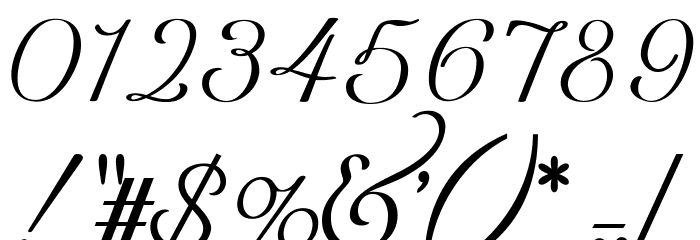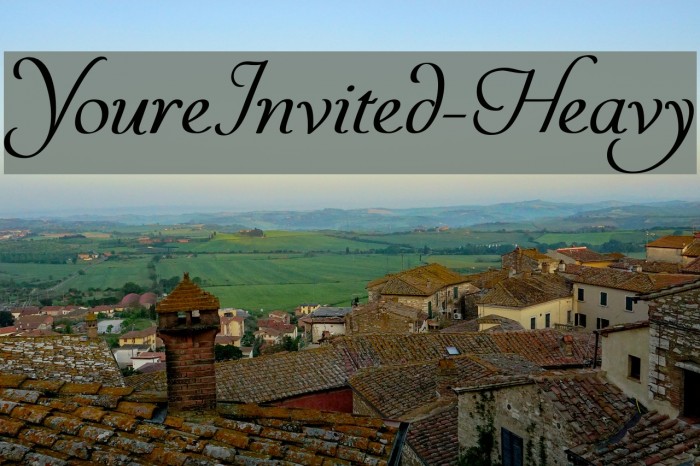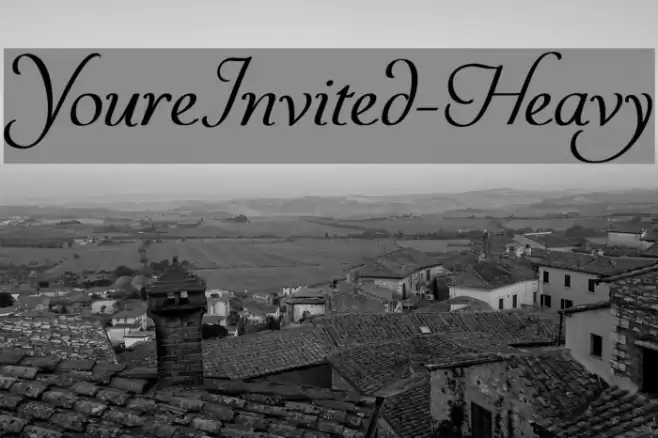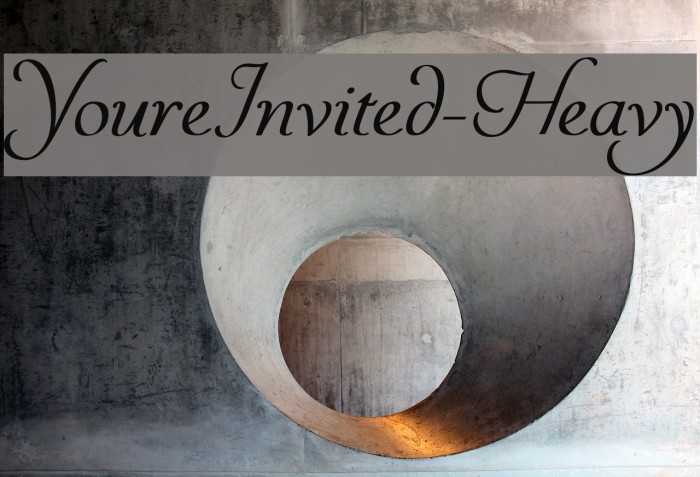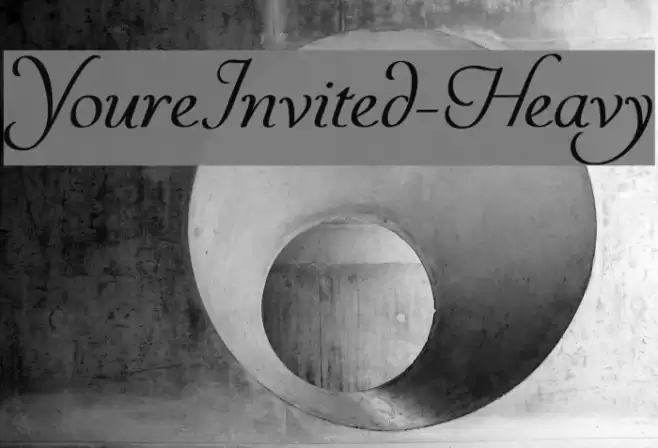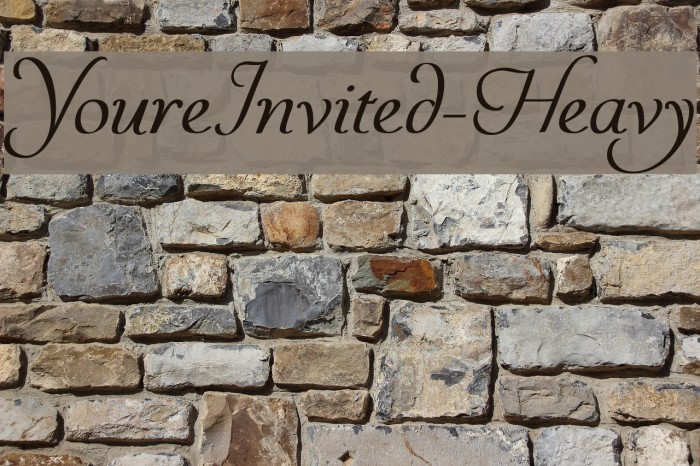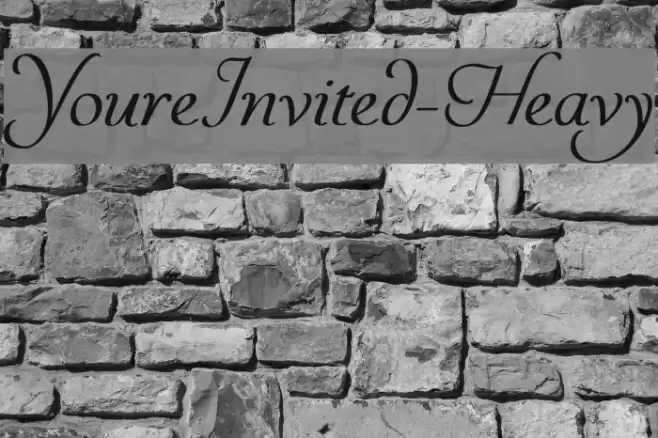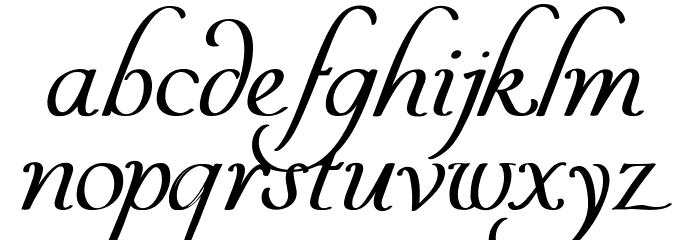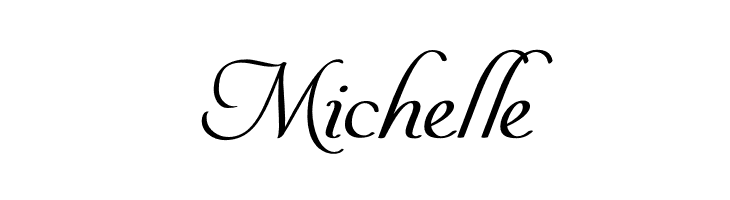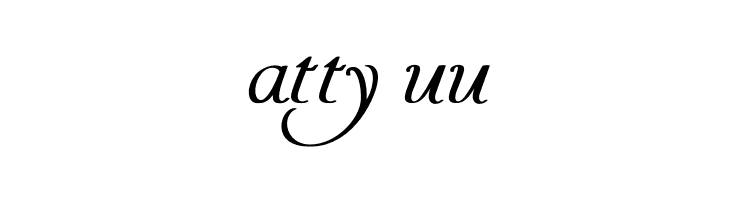
YoureInvited-Heavy Font
YoureInvited-Heavy Description
This elegant script font features flowing, cursive letterforms with a sophisticated flair. The uppercase letters are characterized by their sweeping curves and intricate loops, while the lowercase letters maintain a consistent, graceful style. The numerals are designed with a similar elegance, making them suitable for formal invitations and announcements. The special characters complement the overall aesthetic, adding a touch of refinement to any text. The font's design is both timeless and versatile, making it ideal for projects that require a touch of class and elegance.
An elegant script font with flowing, cursive letterforms and sophisticated style from Uncategorized fonts.
• Contrast: Medium
• Overall Style: Classic